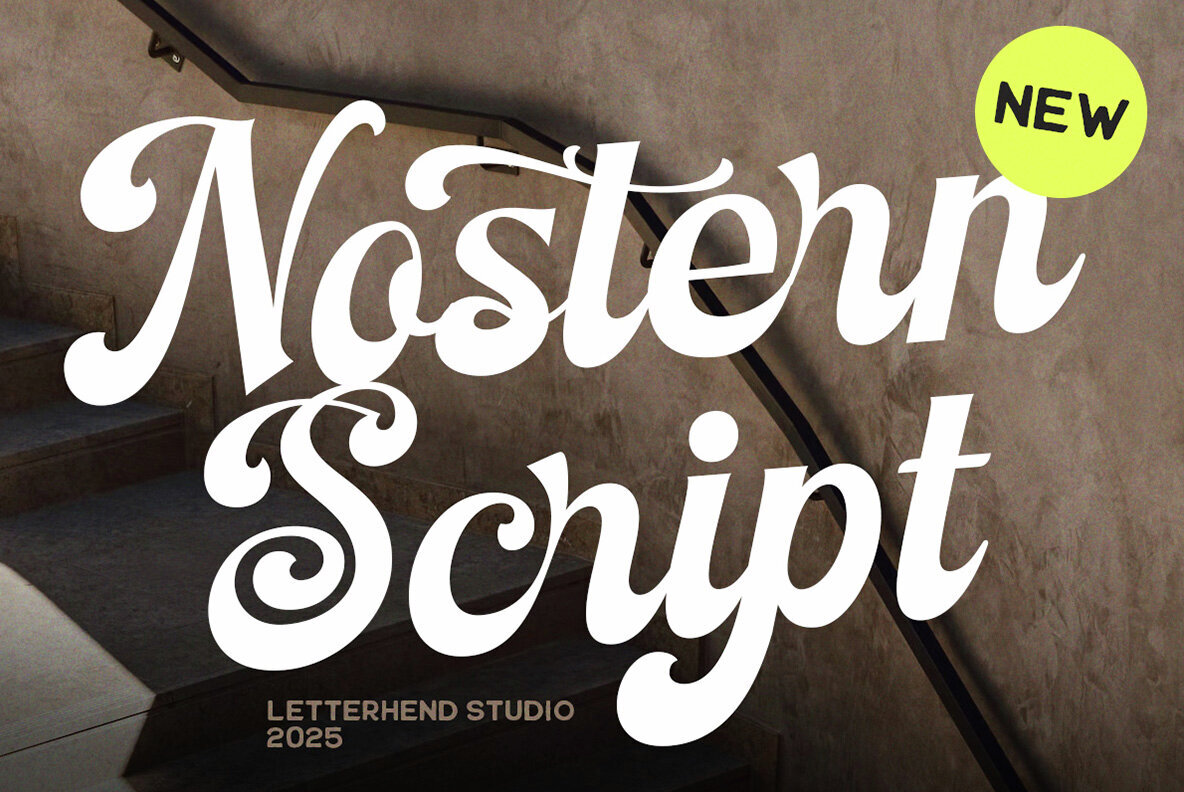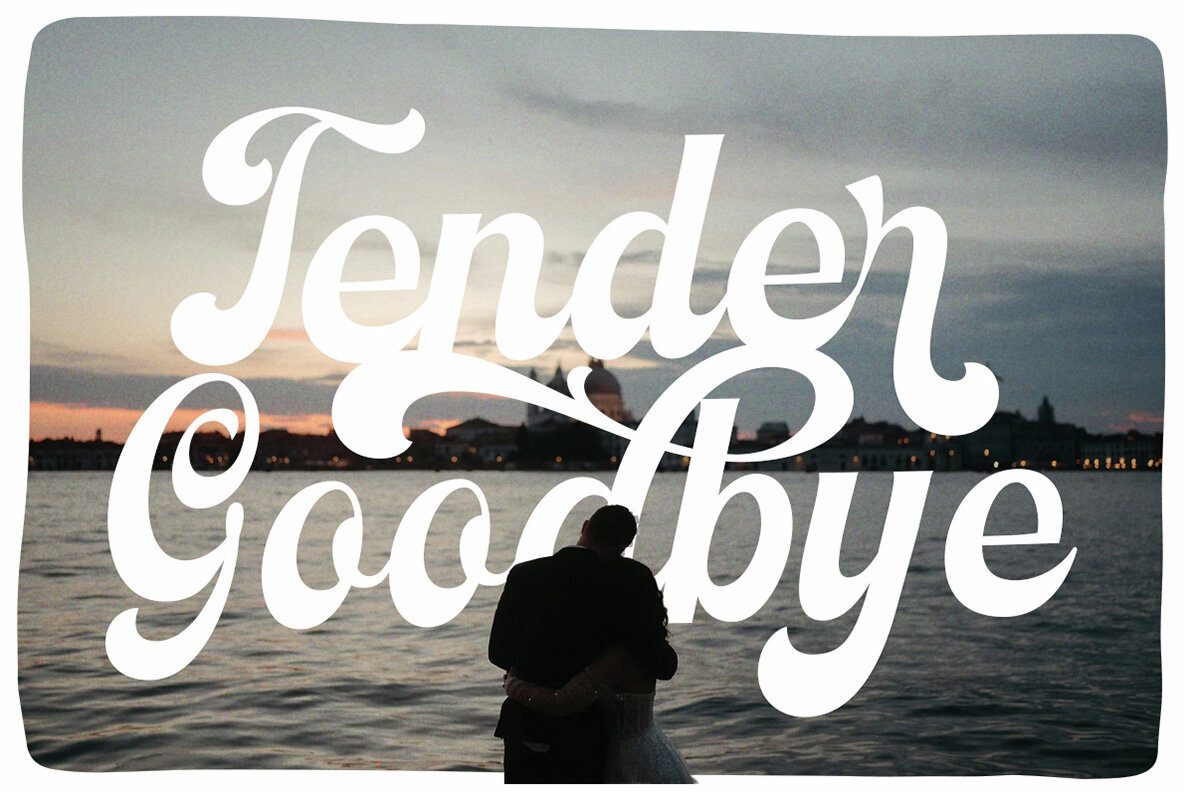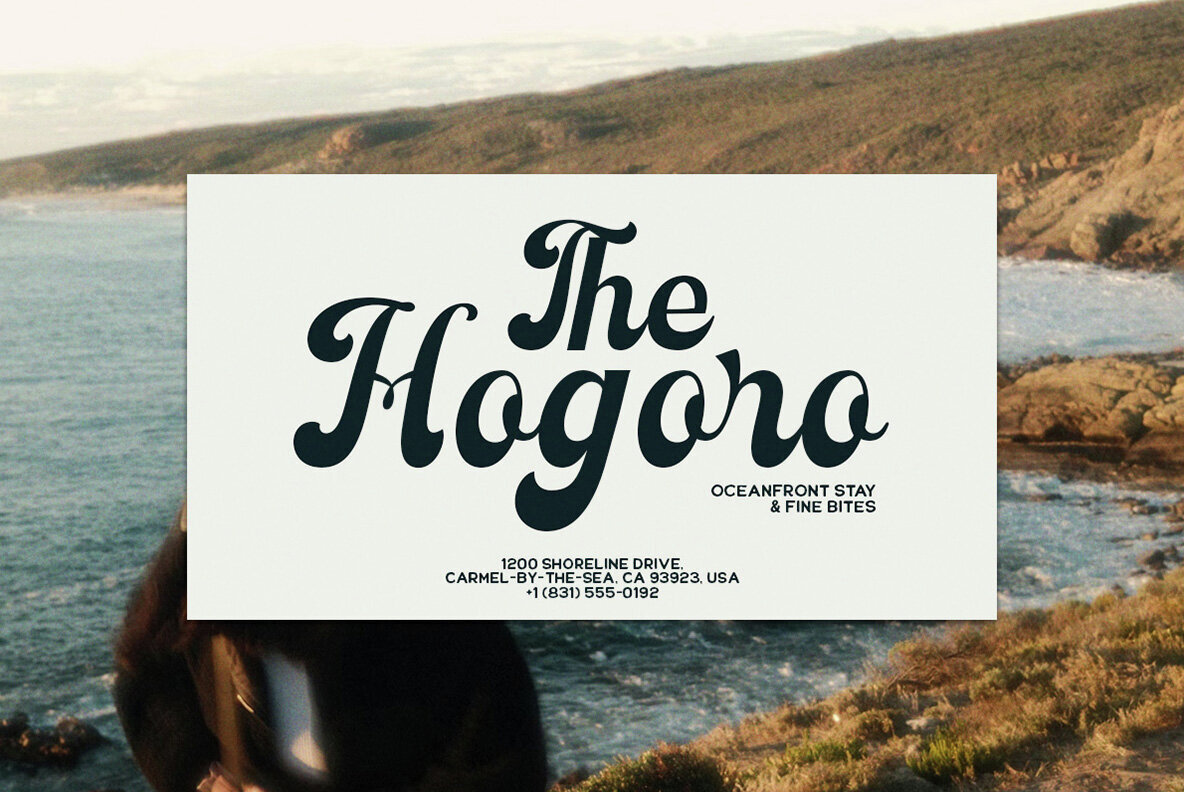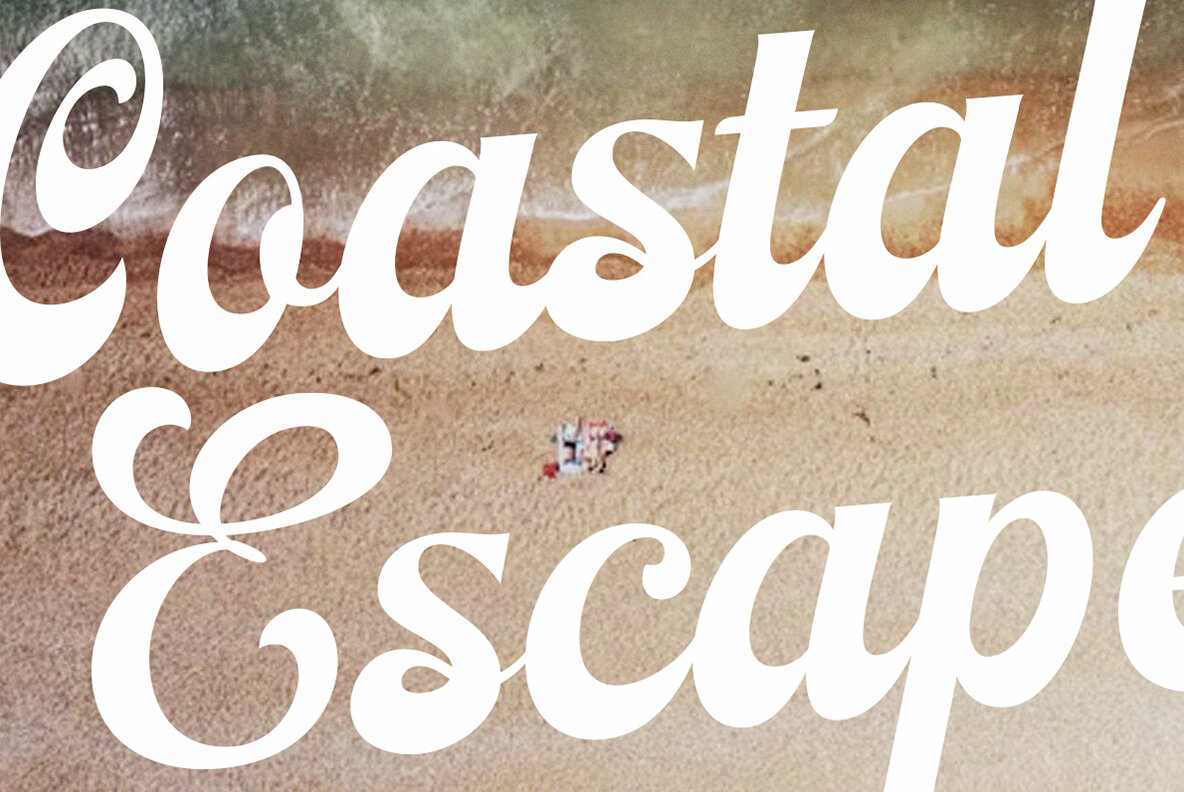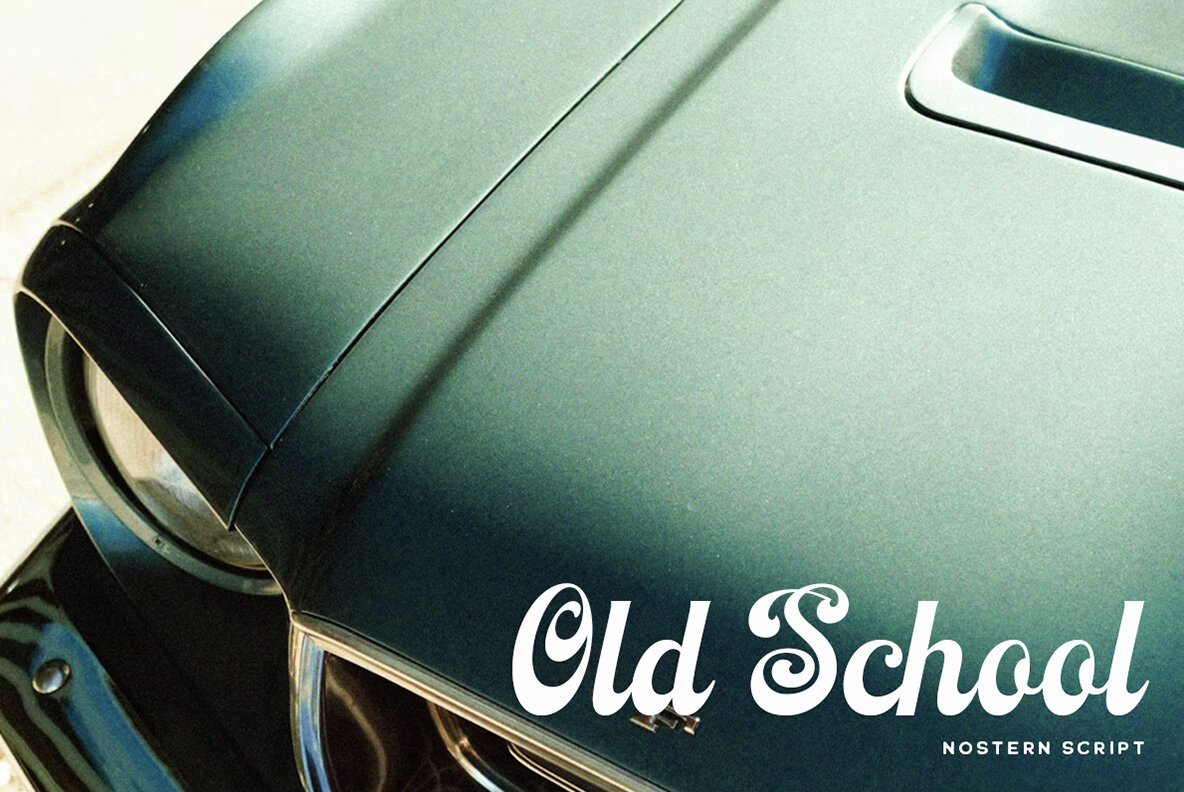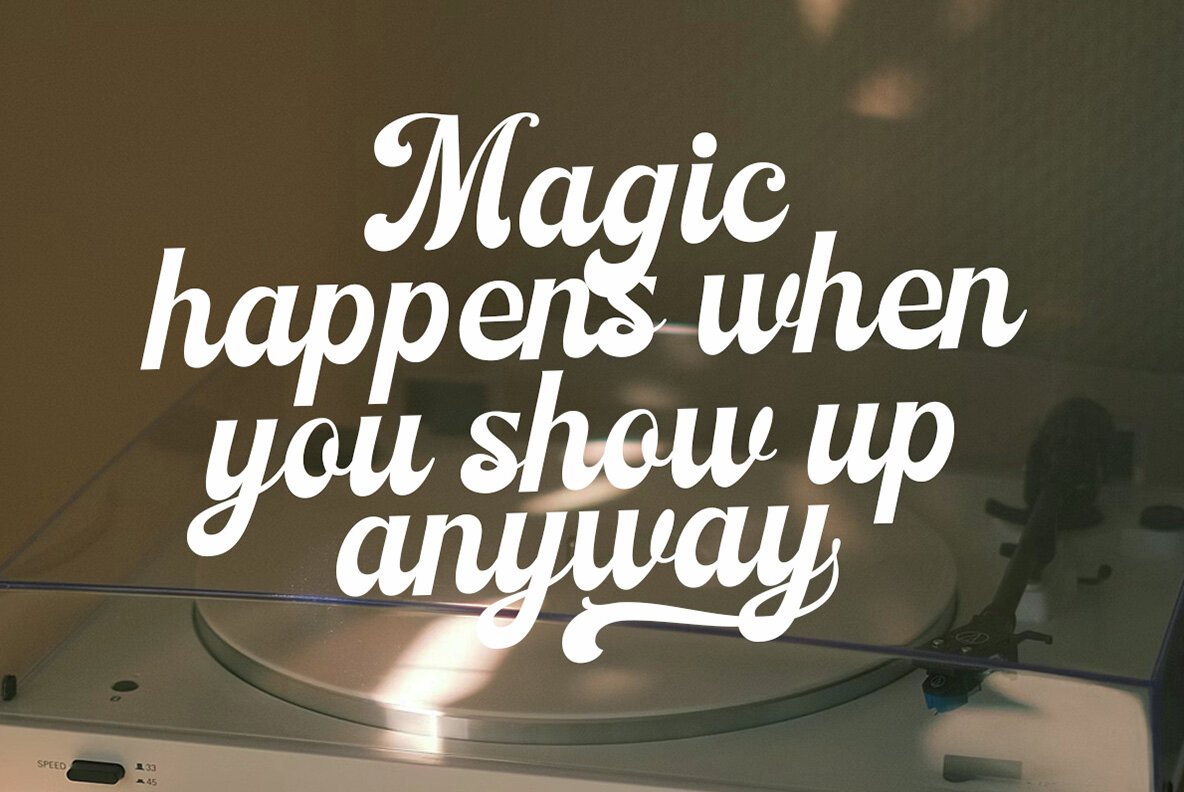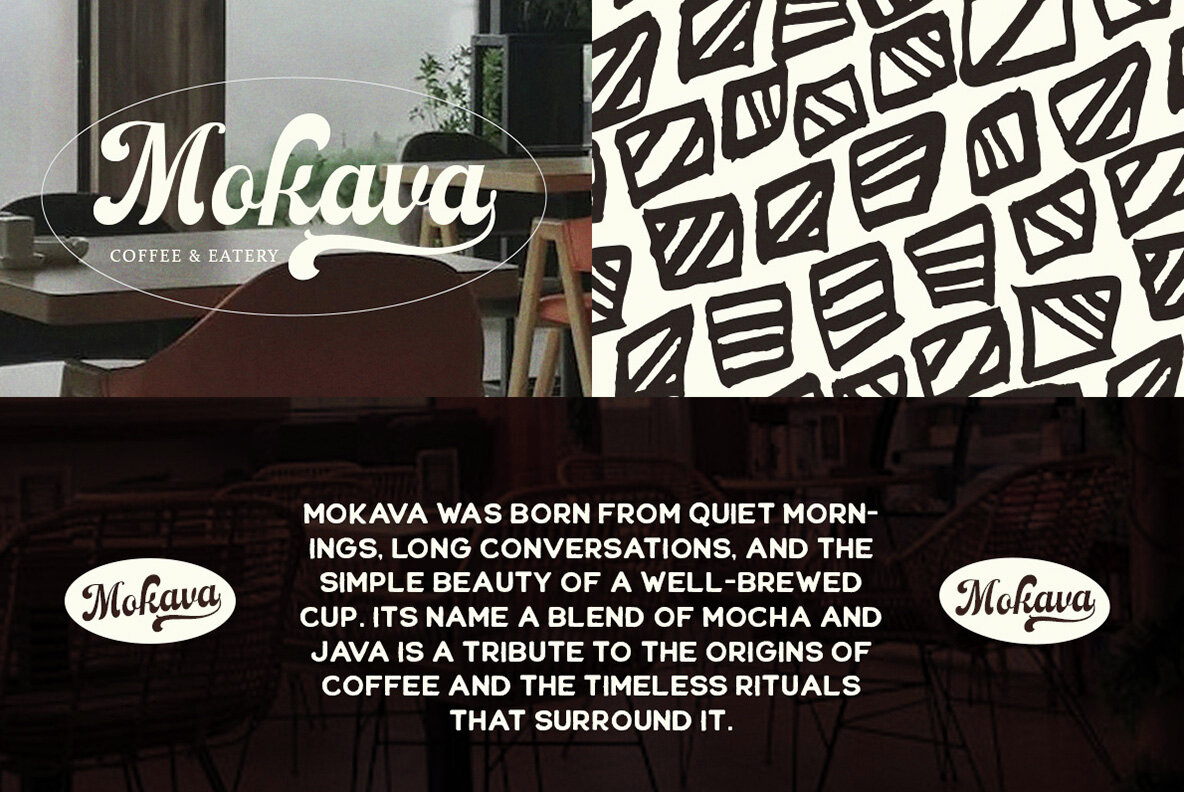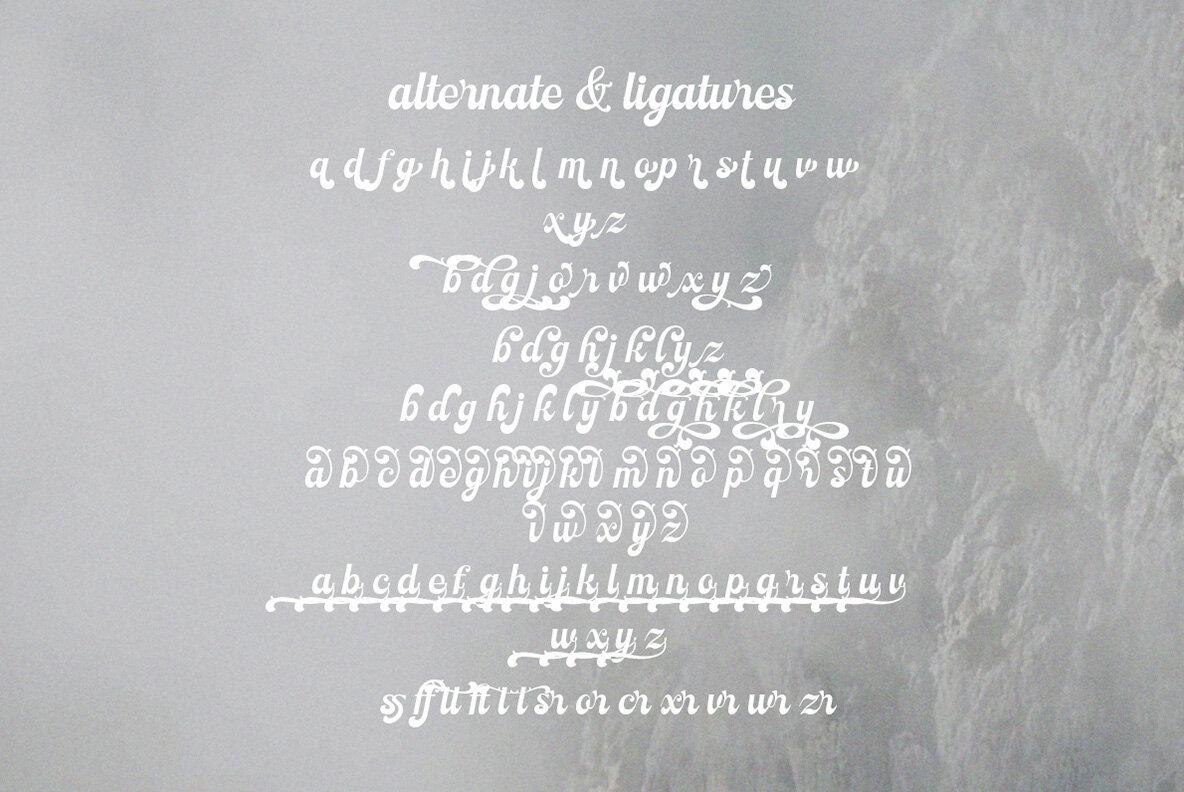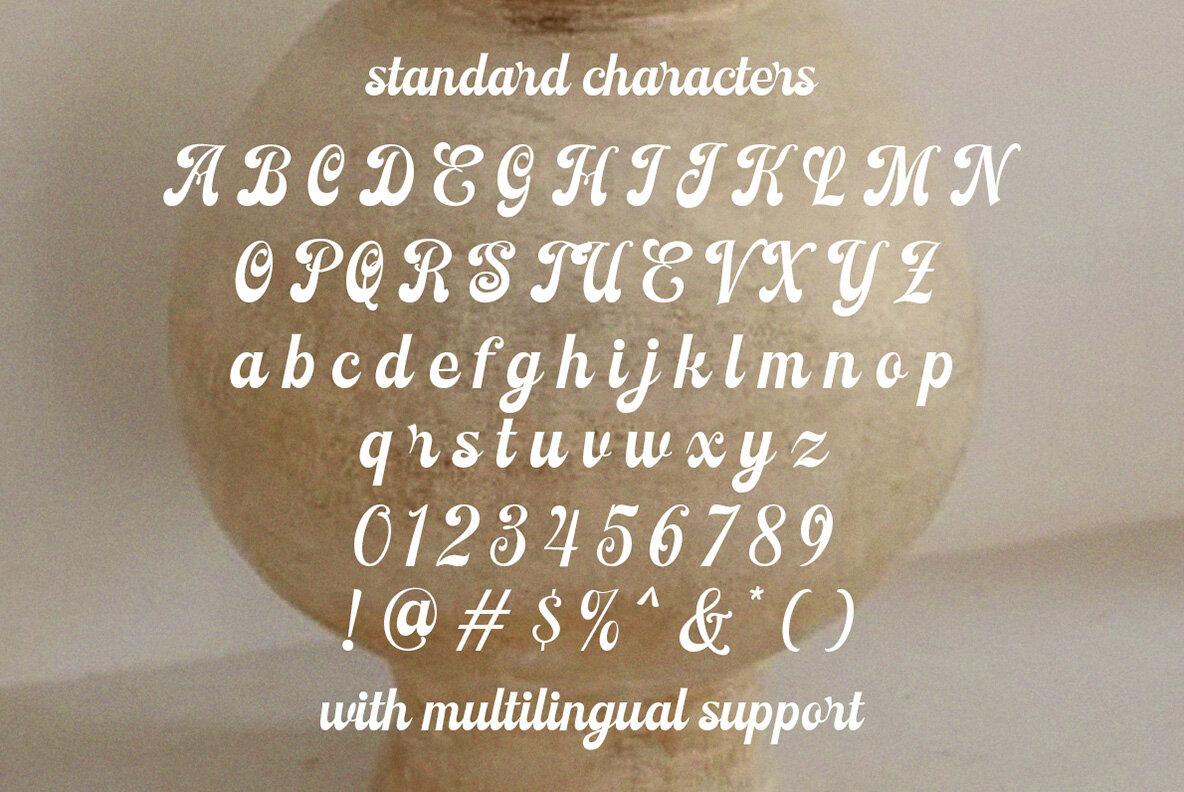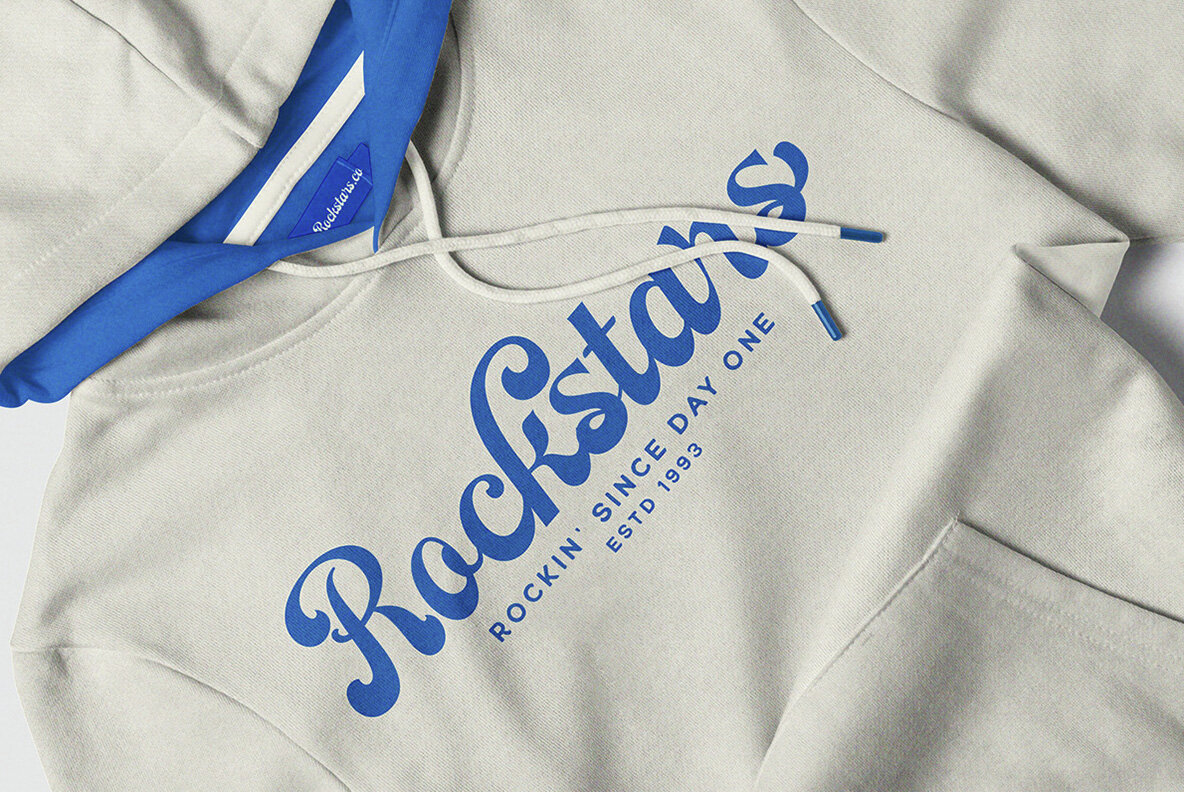
Nostern Font
Nostern Script
Nostern Script is a bold and expressive script typeface with a modern vintage aesthetic. Featuring high contrast strokes, elegant swashes, and ornamental curls, this typeface offers a dramatic yet refined look that commands attention. The strong vertical structure paired with whimsical, retro-inspired terminals makes it ideal for branding, editorial headlines, fashion logos, packaging, and poster design. Its contemporary flourish with classic roots brings a unique personality to both digital and print layouts, especially where a sophisticated yet playful character is desired. Features: We highly recommend using a program that supports OpenType features and Glyphs panels like many of Adobe apps and Corel Draw, so you can see and access all Glyph variations.